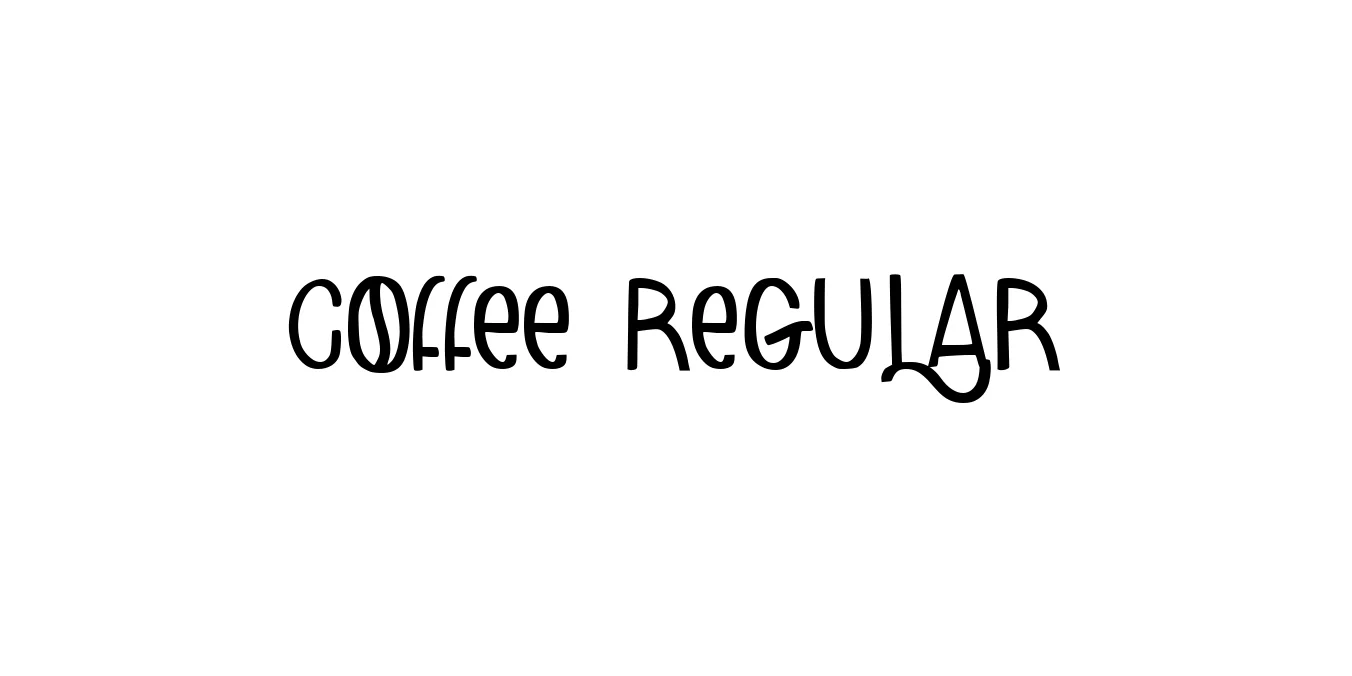
Coffee Regular
Designed by Creatype Studio
| Font Name | Coffee |
| Category | Handwritten |
| Designer | Creatype Studio |
Coffee Regular is a warm and inviting display typeface designed to evoke the cozy atmosphere of a local café. Its organic, slightly rounded letterforms provide a handmade feel that is perfect for branding projects requiring a touch of personality and approachability. The font features a balanced weight that maintains readability across both print and digital mediums while offering a unique visual rhythm.
Originally released to cater to the boutique food and beverage industry, this font has expanded its reach into social media graphics and lifestyle packaging. With its distinct handwritten aesthetic and soft terminals, it serves as a versatile tool for designers looking to create a down-to-earth brand identity that resonates with modern consumers who value authenticity and artisanal quality.
Coffee Regular Best Uses
Ideal for coffee shops, bakeries, and organic food labels looking for a personal touch.
Perfect for headlines in lifestyle magazines, cookbooks, and food-related blogs.
Great for eco-friendly product labels, artisanal wraps, and boutique merchandise.